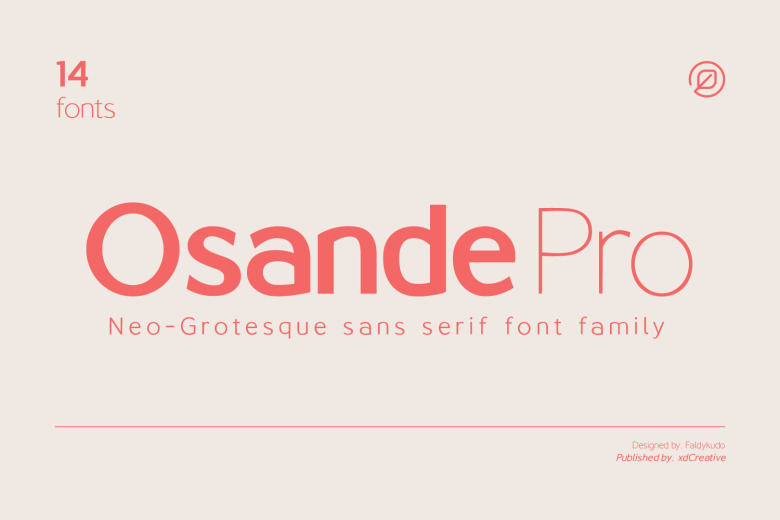
Osande Font
Osande is a modern sans serif font with neo-Grotesque touch, more homogenous forms in which the similar width of characters, more strict construction of design and minimal stroke contrast. Most of the personality is added to the letters by the specific details and angles.
Osande the font family contains 3 basic forms : italics, obliques and uprights. Each of them has 7 different weights ( Thin, Extra light, Light, Regular, Medium, Semi bold and Bold ). Osande font format including.otf.woff and.ttf. are included. Osande Perfectly suited for graphic design and any display use ( for the logos, t-shirts, the web as well as for print, and also great for headings).
Osande Sans Serif Font